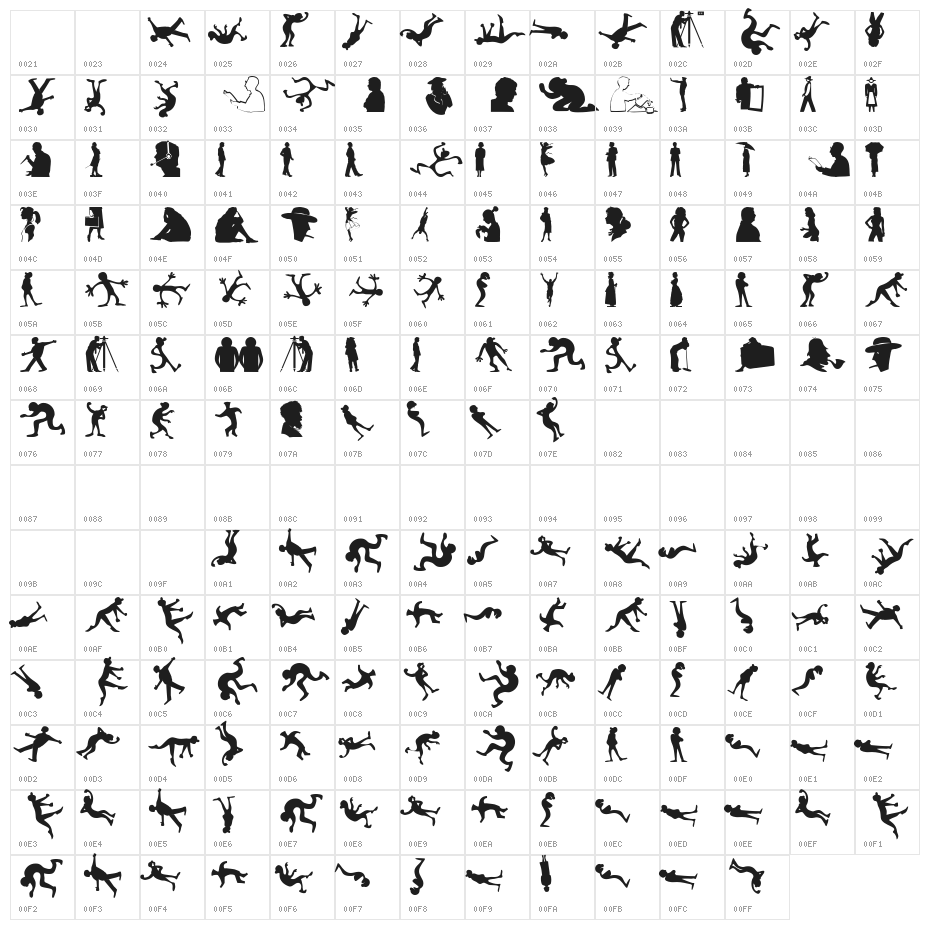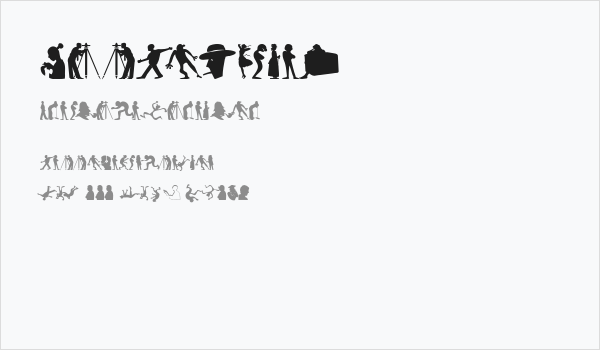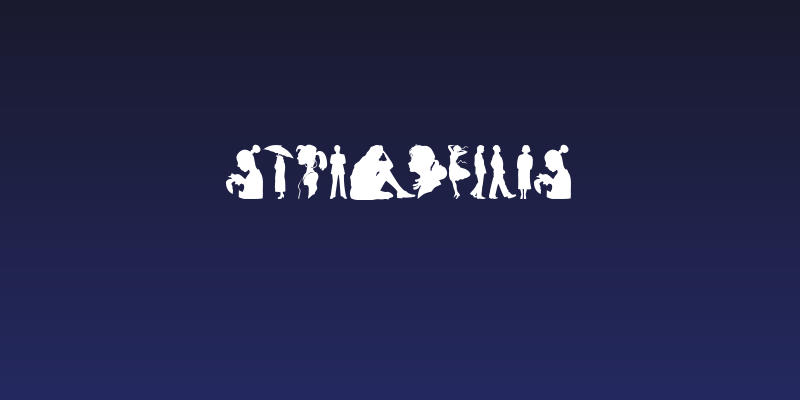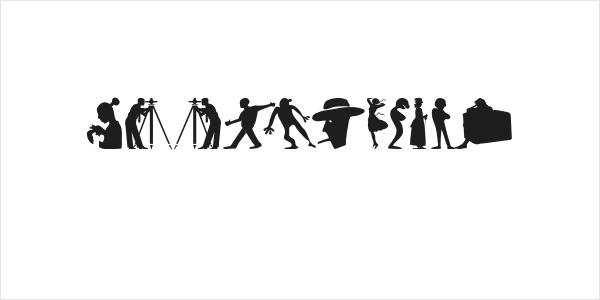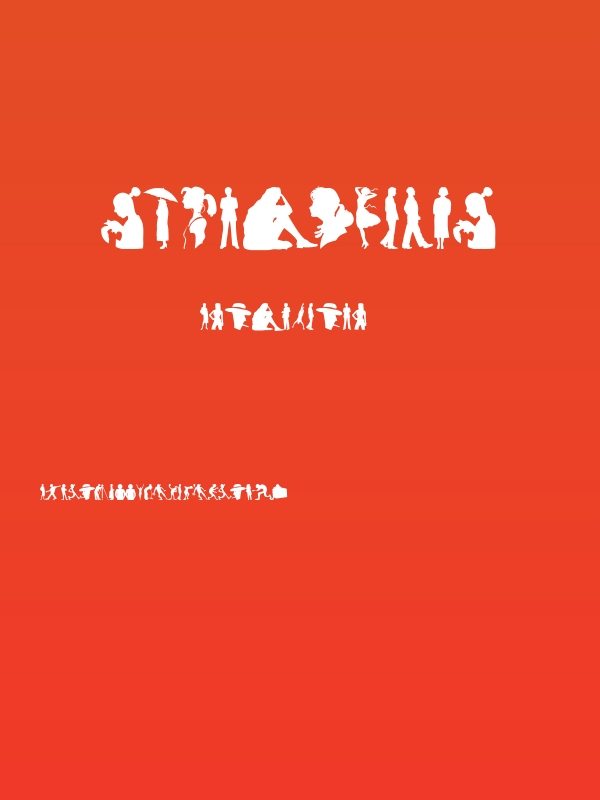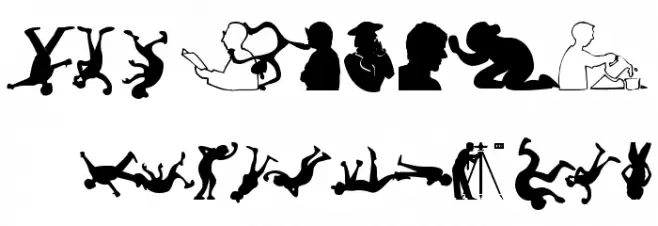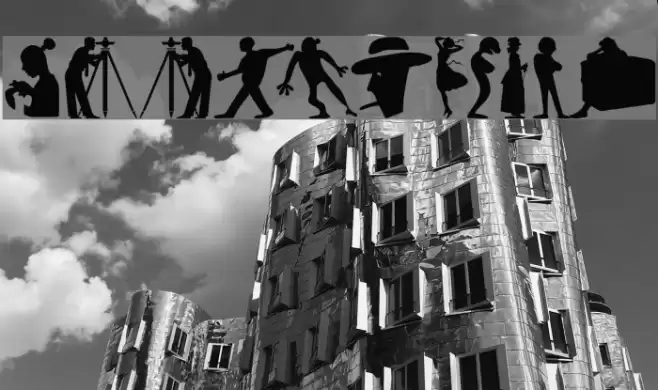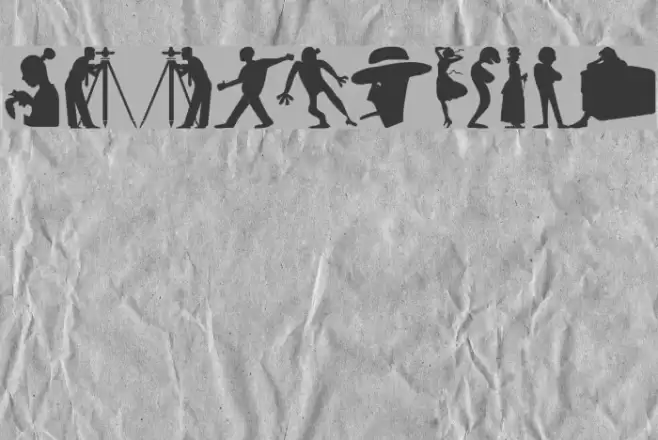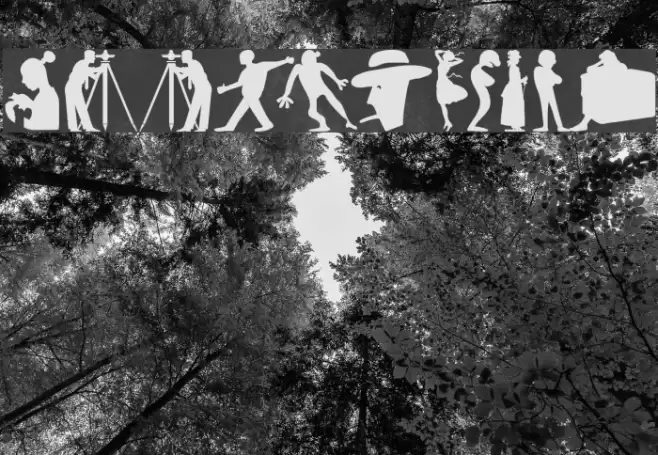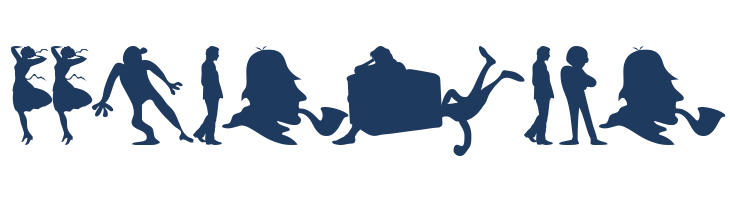
SilhouFaces Font
SilhouFaces Description
A decorative display typeface composed entirely of human silhouettes in various poses, each character formed by a unique figure or group of figures, resulting in highly illustrative and playful letterforms.
| Overall Style | Decorative, Playful, Artistic |
| Use Case | Headlines, Logos, Posters, Artistic projects |
| Proposed Projects | Posters, album covers, event invitations, editorial headlines, creative branding, children’s books. |